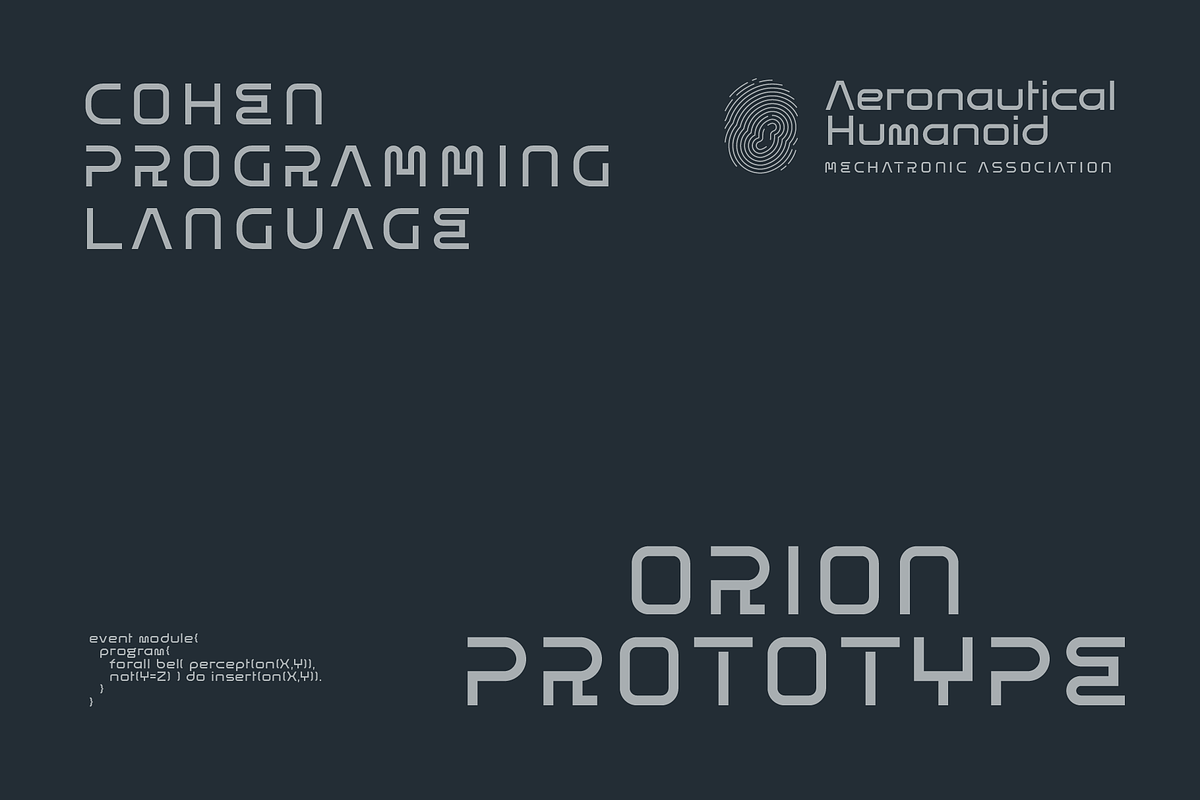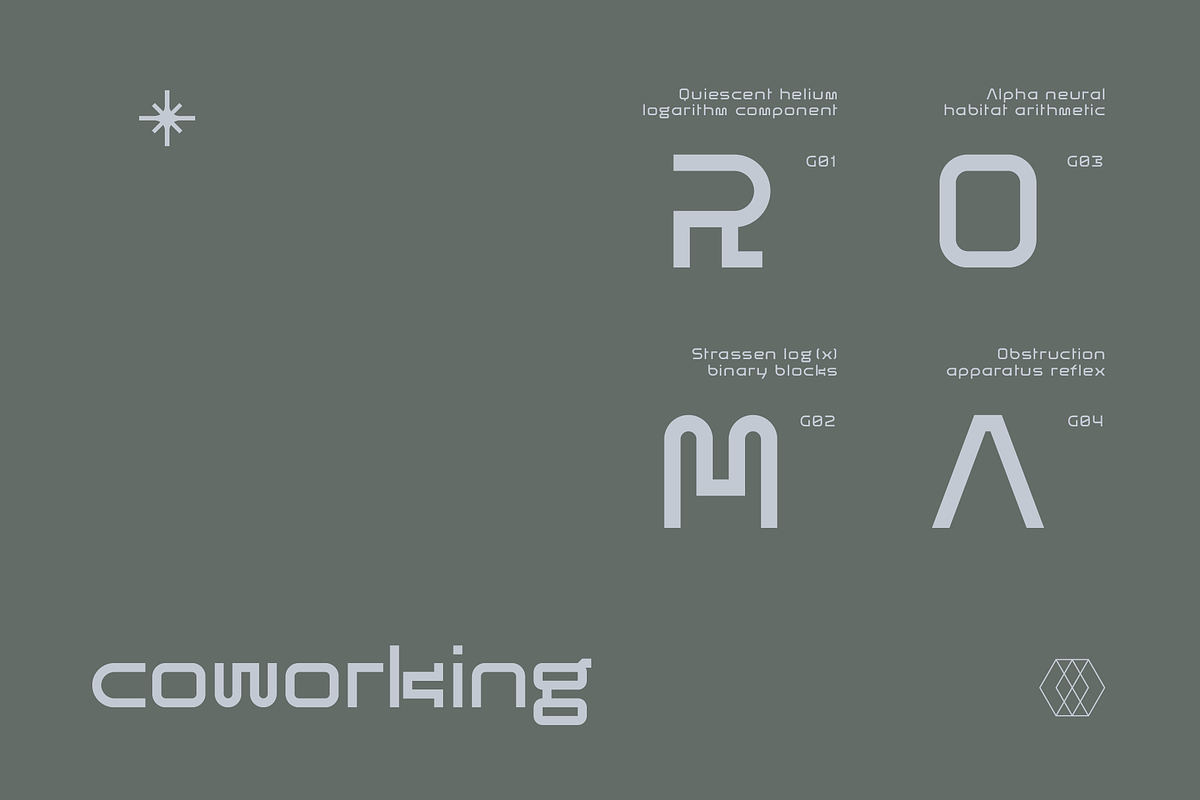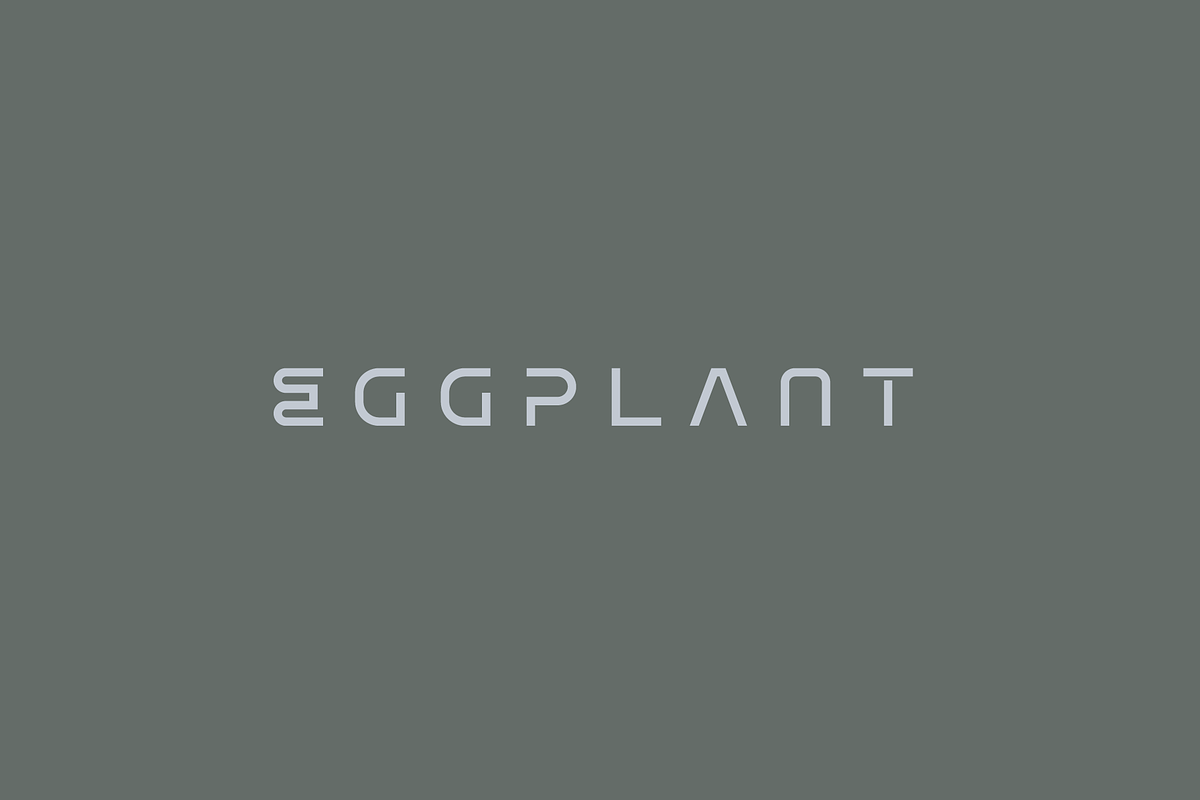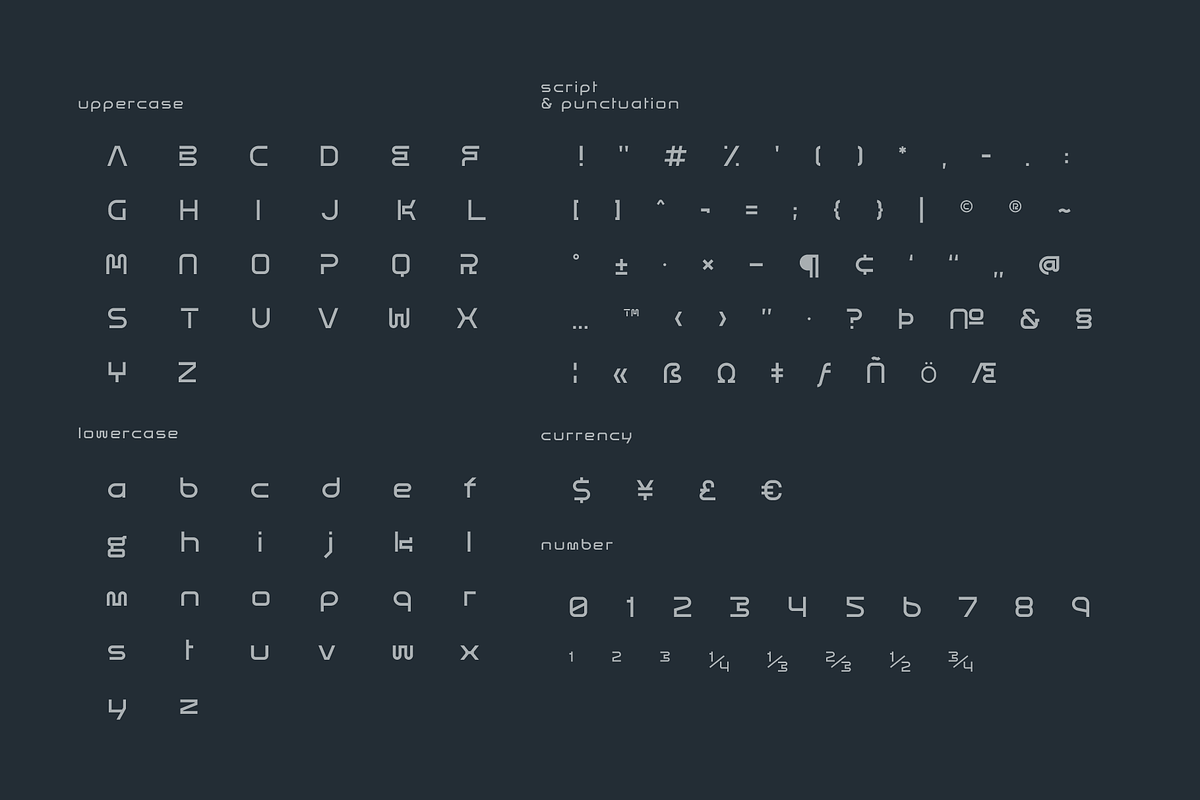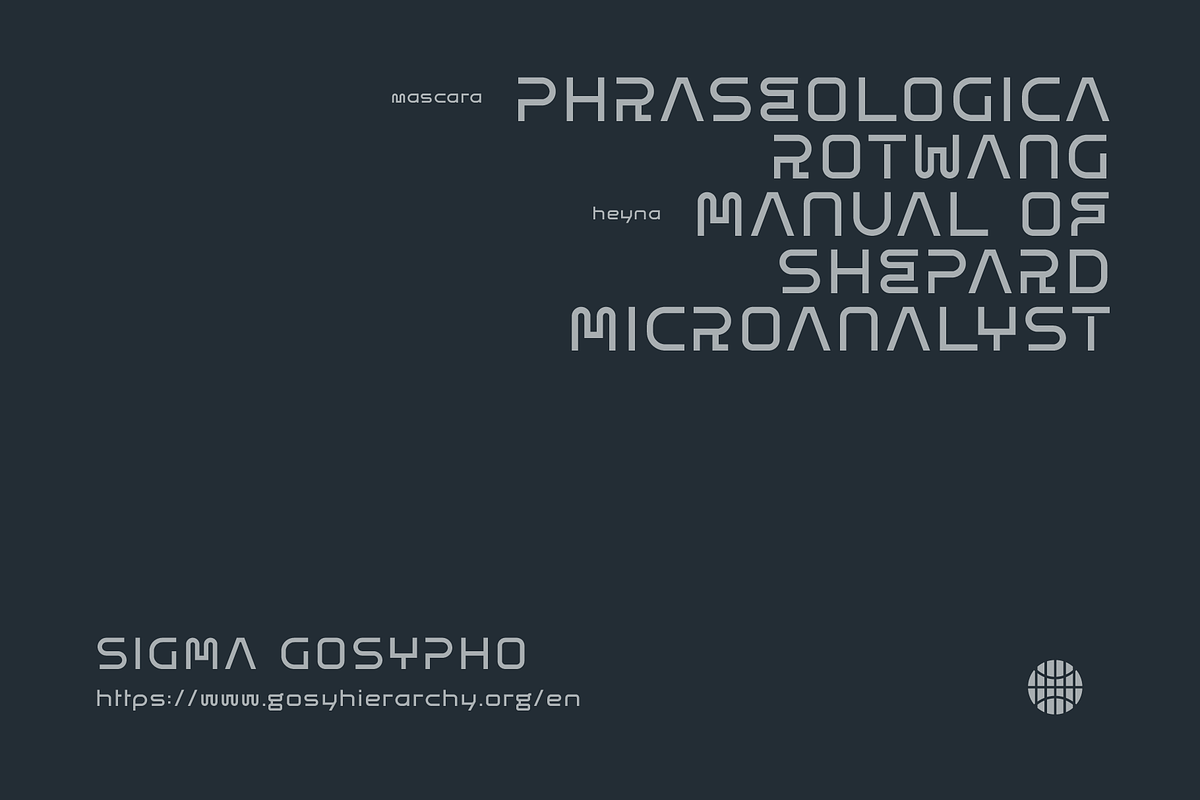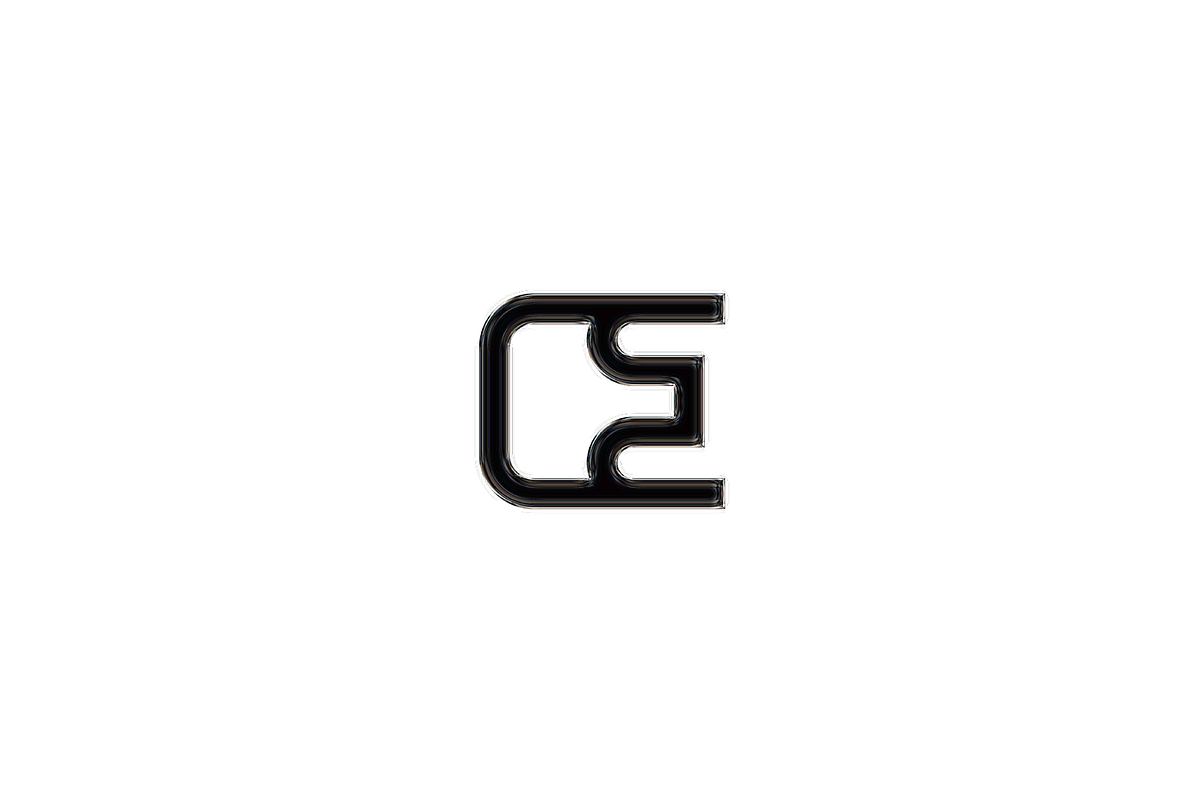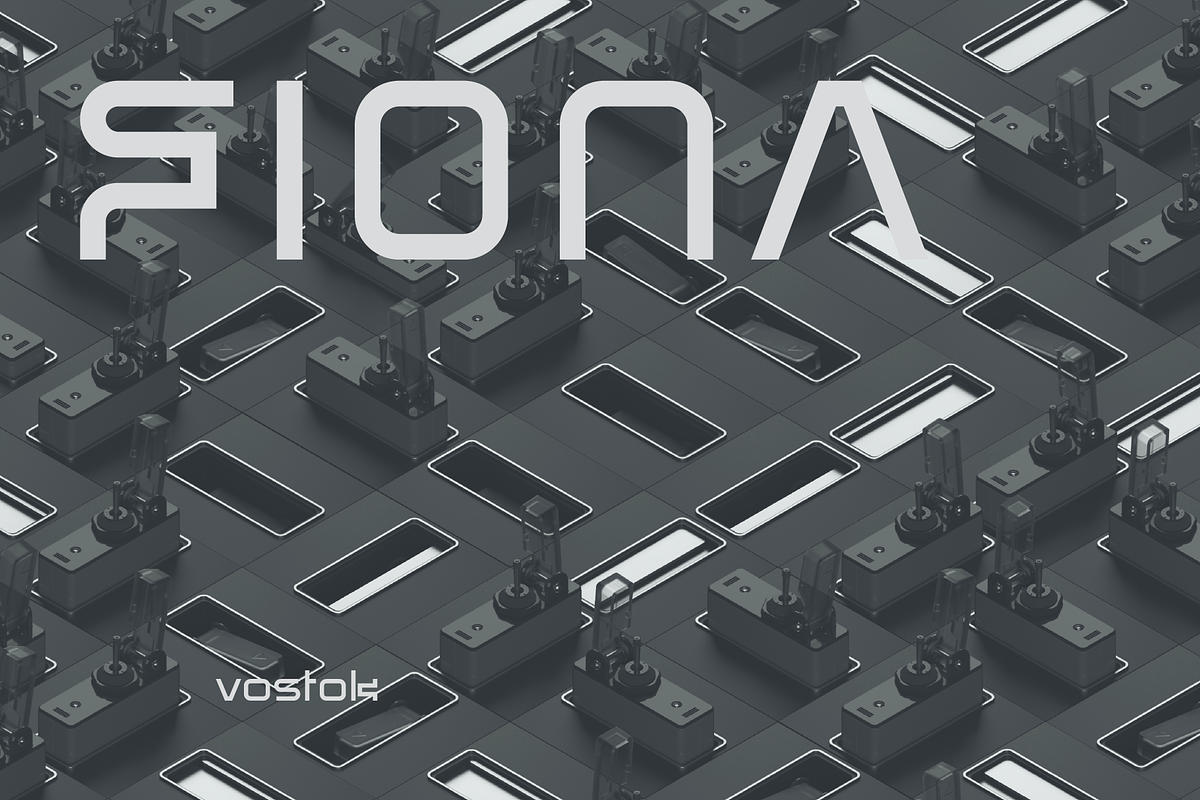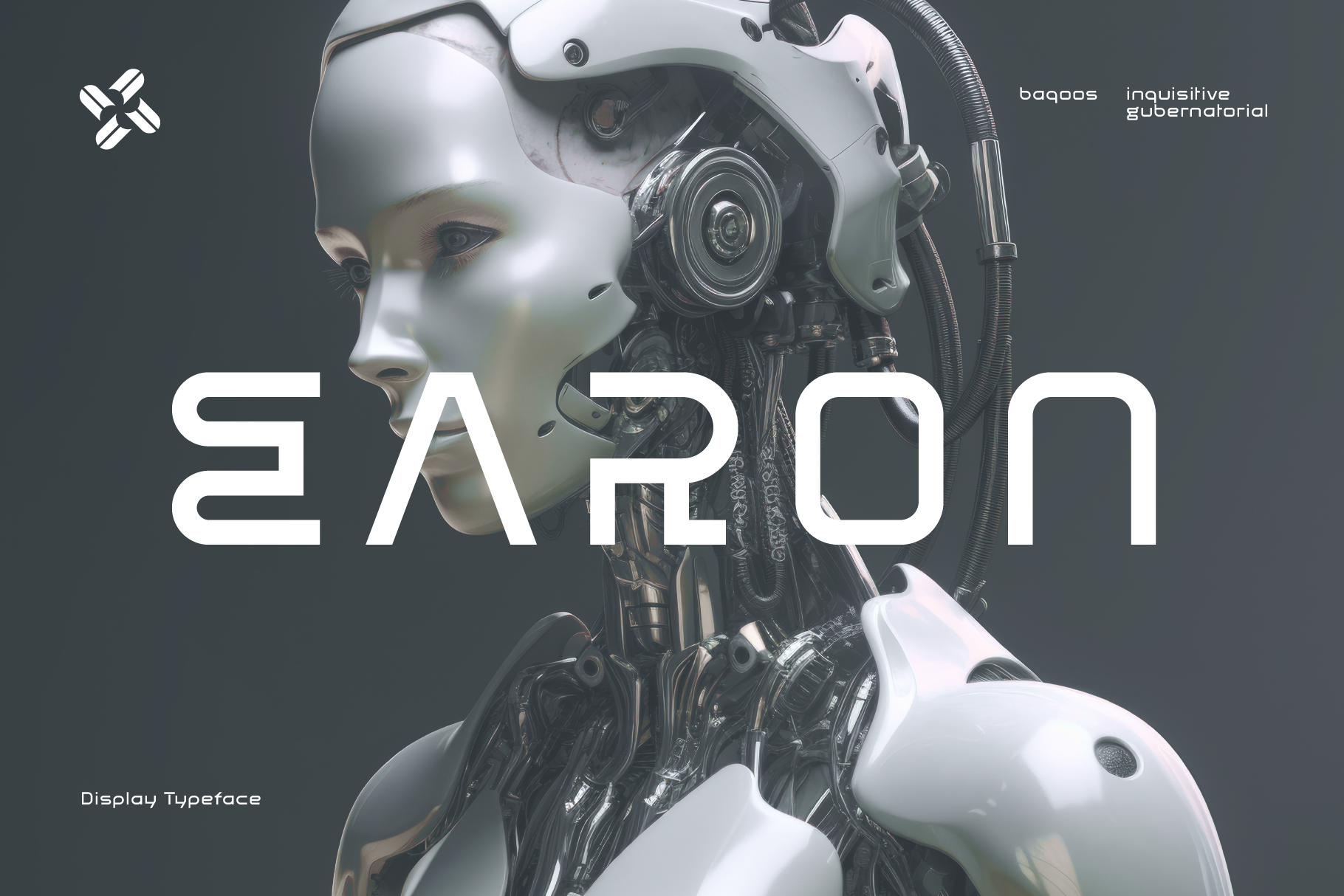
Earon Futuristic Tech Font
Earon is an inquisitive gubernatorial mono lineal typeface apt for headline, editorial, branding, packaging, printed materials and typographic applications. 220+ glyphs including punctuation and numerical.